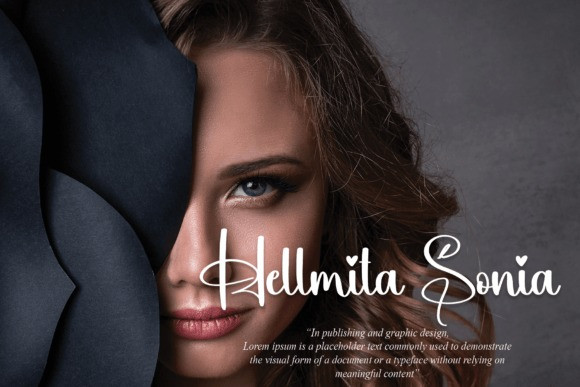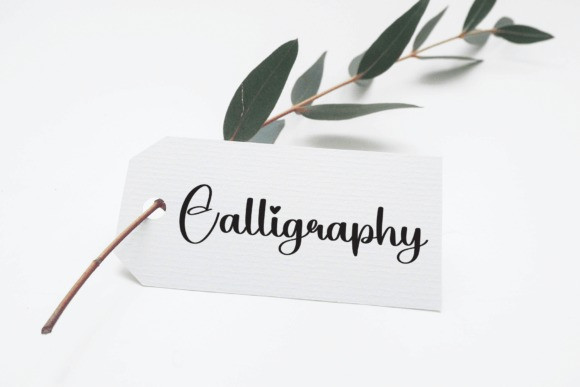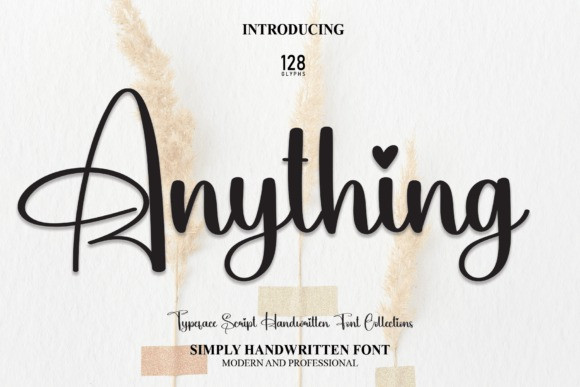
Anything Font
Anything Font is a stylish Font. This beautiful font offers your personal touch to your latest art project with an elegant, classy, and modern look. It has gorgeous typographic perfect for many different projects such as logos & branding, invitations, stationery, wedding designs, social media posts, advertisements, product packaging, product designs, labels, photography, watermarks, special events, or anything that needs handwriting taste.